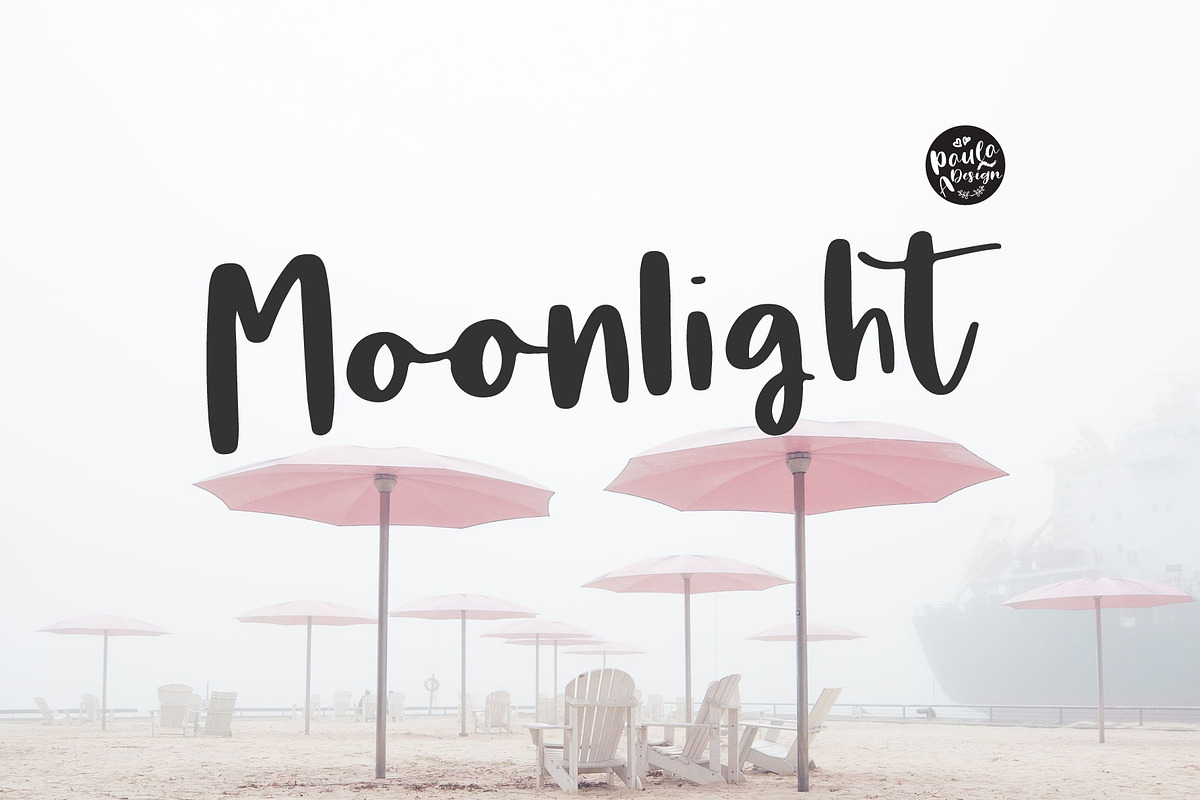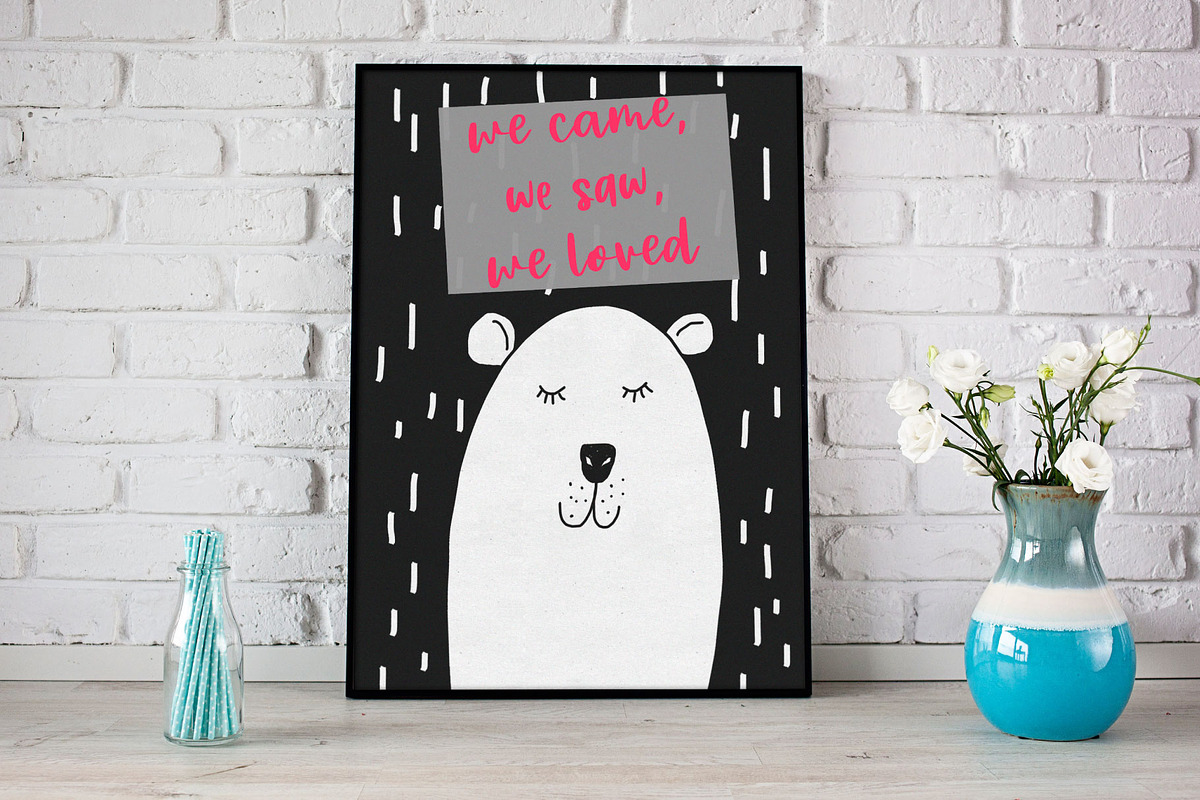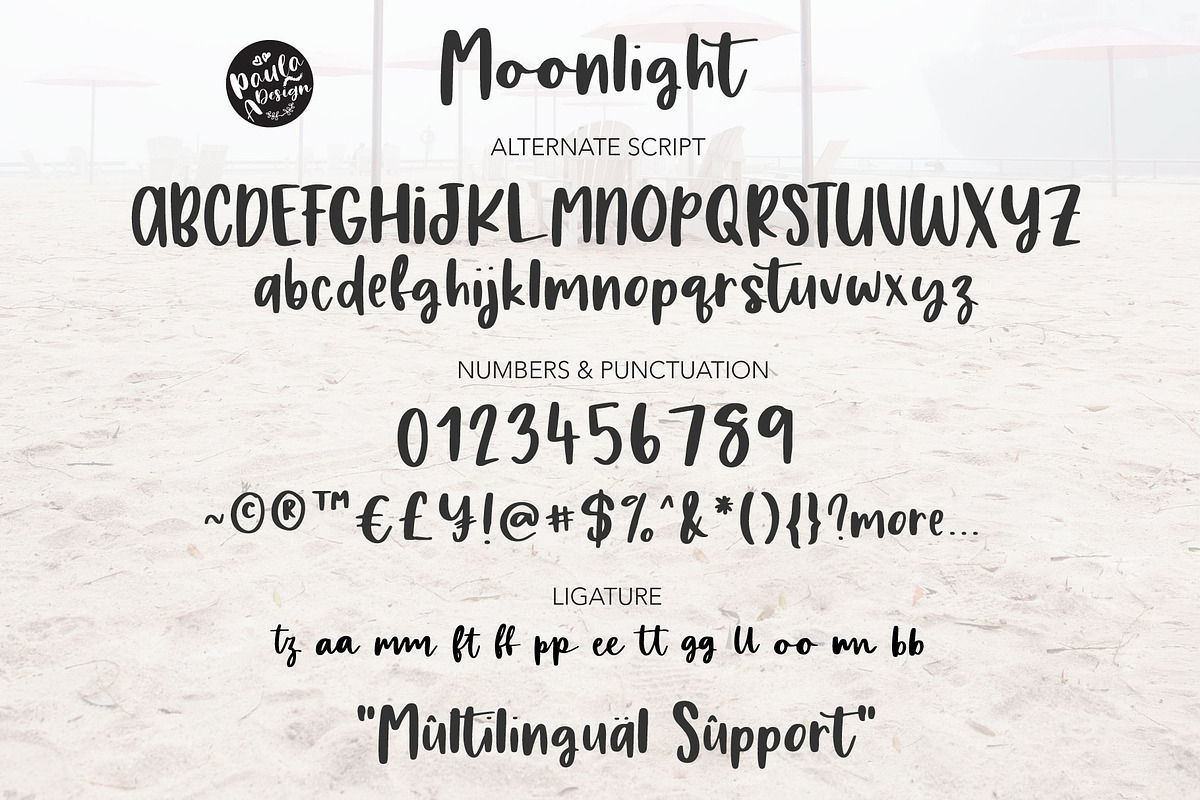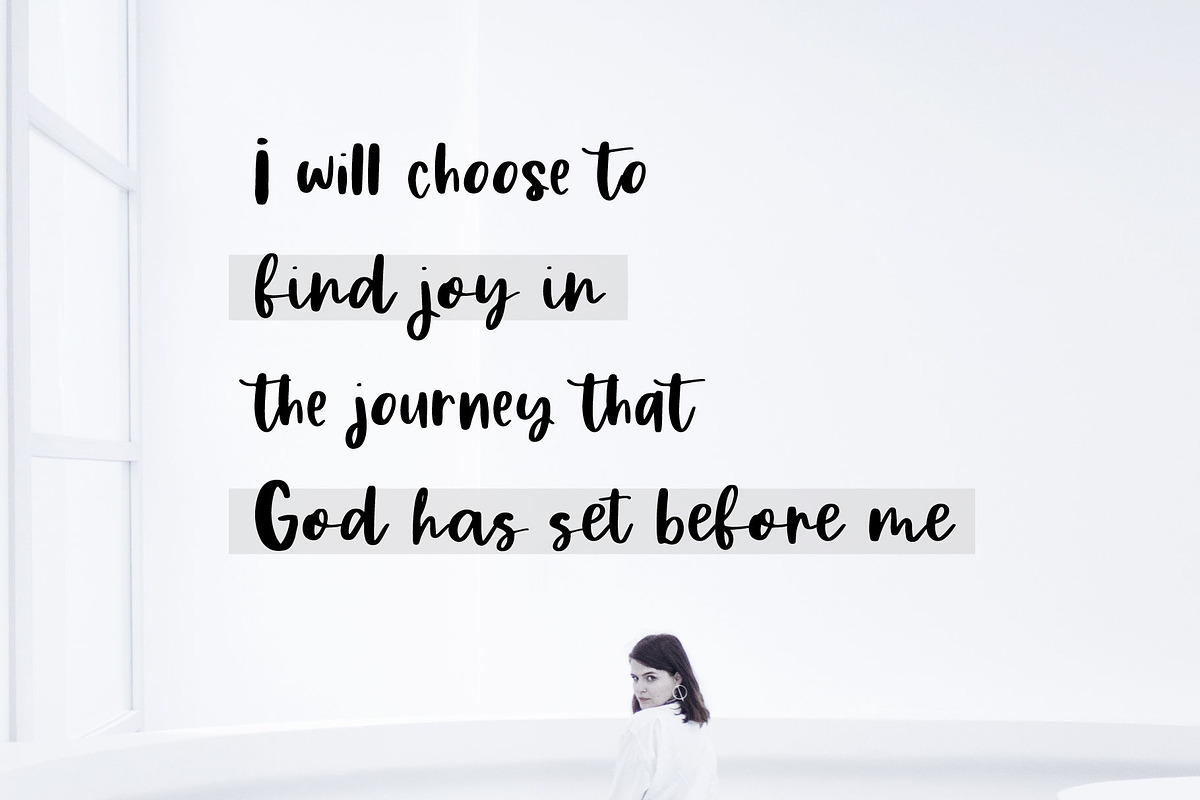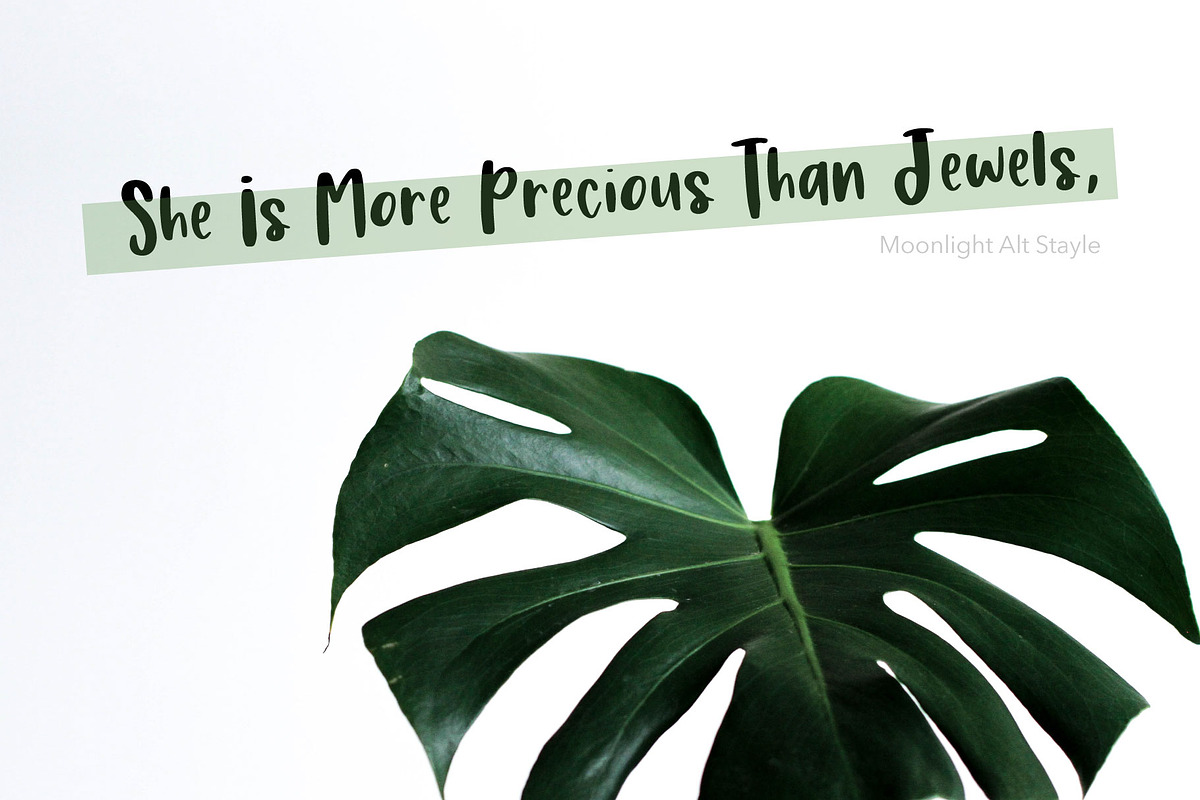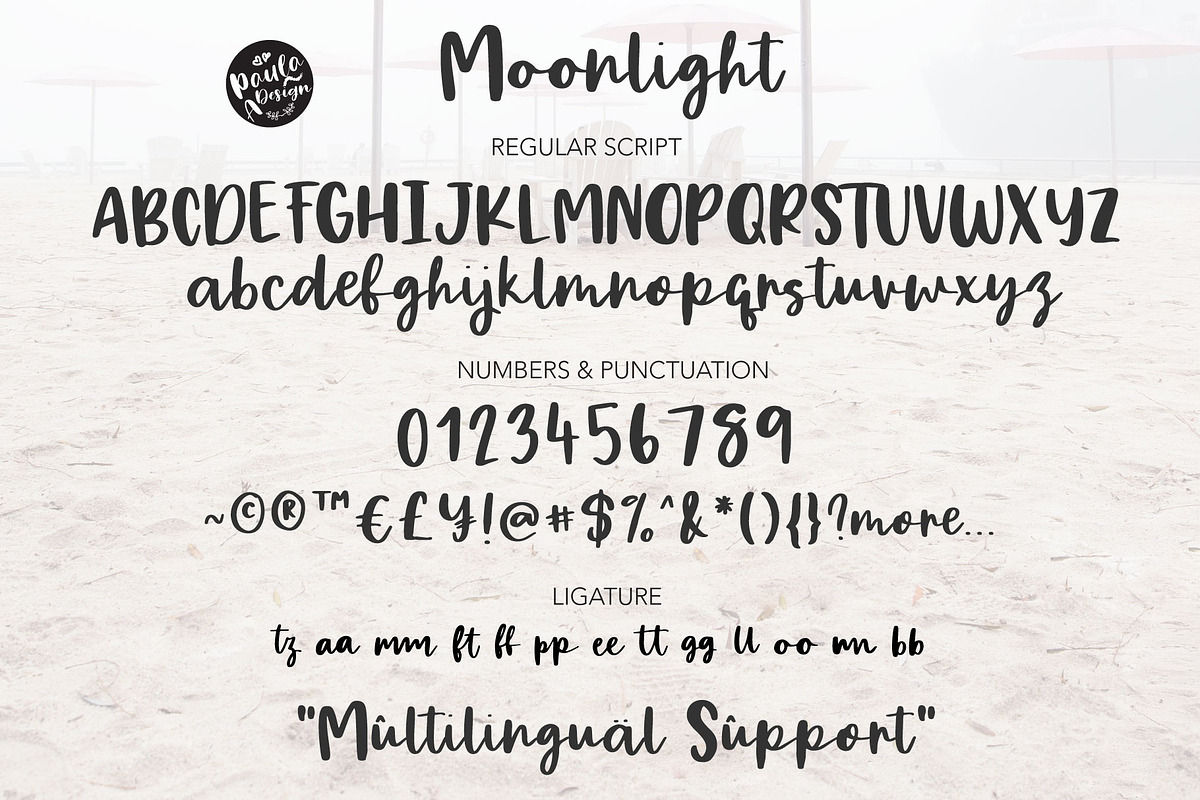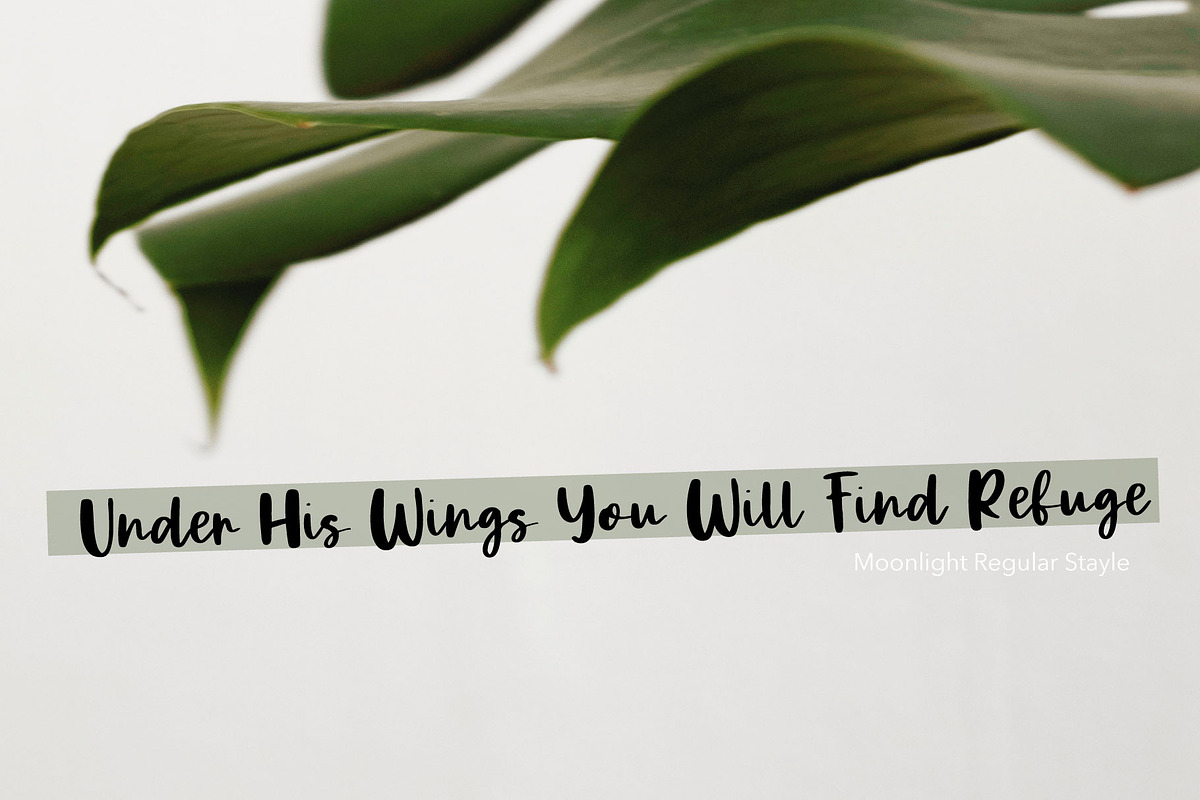
Moonlight | Script Font Duo
Introducing Moonlight - A Chic Brush Stylist font perfect for high impact headlines
Every single letter has been creative carefully and Perfectly Playful new font pair. This font is a perfect script designed for making your set of invitations, Brand, blog posts, and more completely beautiful
"Moonlight" Regular (uppercase, lowercase letters, numbers, and punctuation.)
Ligature: aa mm ft ff pp ee tt gg ll oo nn bb tz
multilingual support for the following languages: Cornish, Danish, Dutch, English, Estonian, Faroese, Filipino, Finnish, French, Galician, German, Icelandic, Indonesian, Irish, Italian, Norwegian Bokmål, Norwegian Nynorsk, Portuguese, Spanish, Swahili, Swedish, Swiss German.